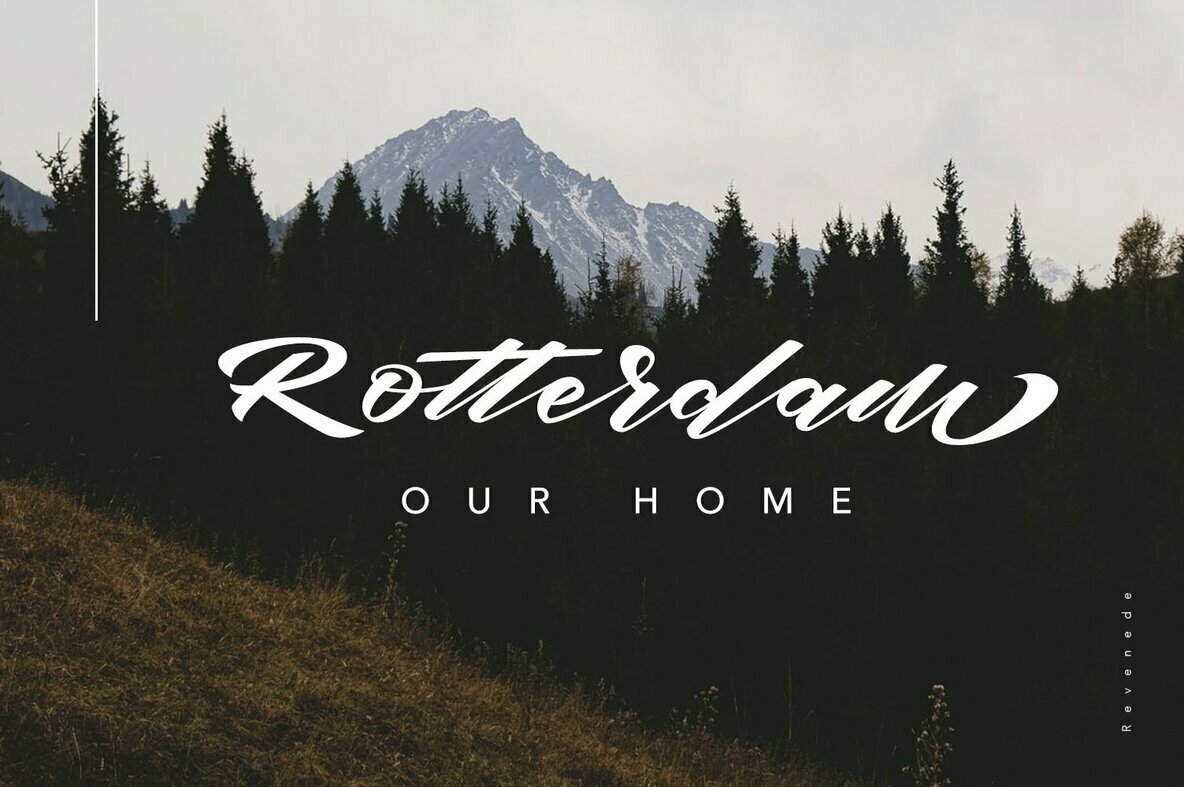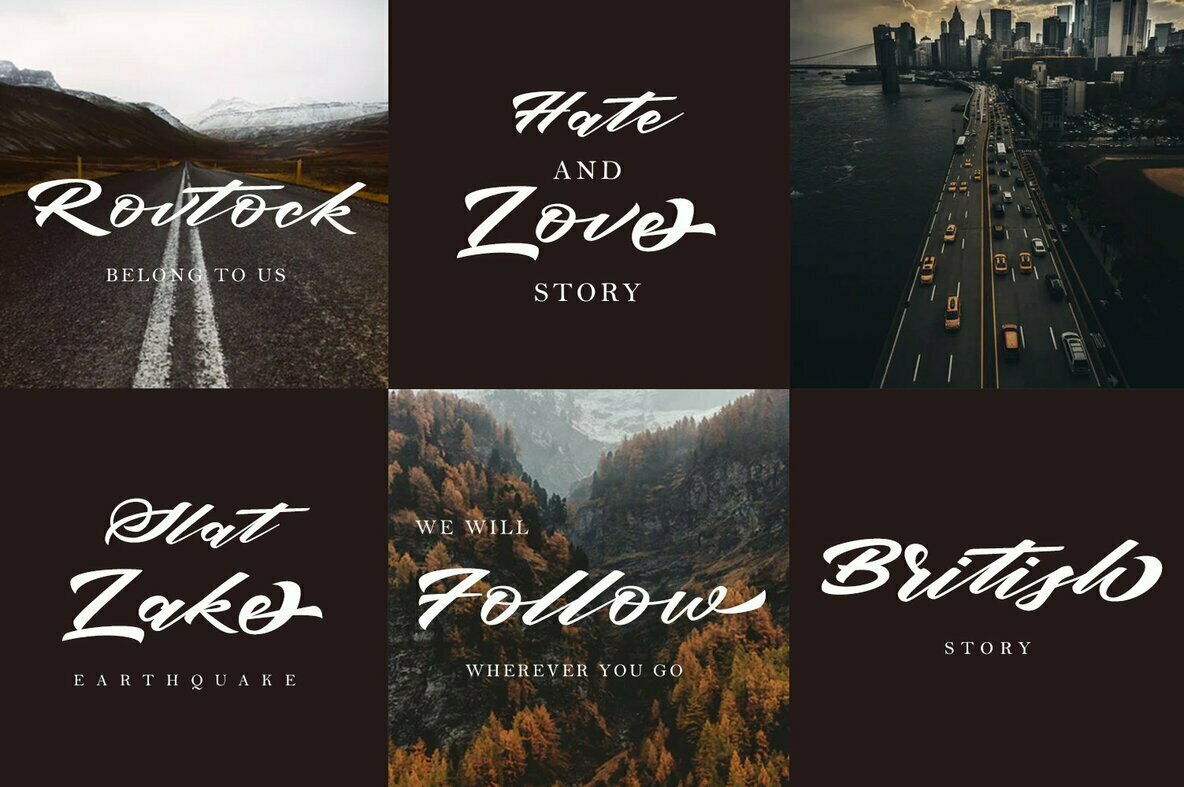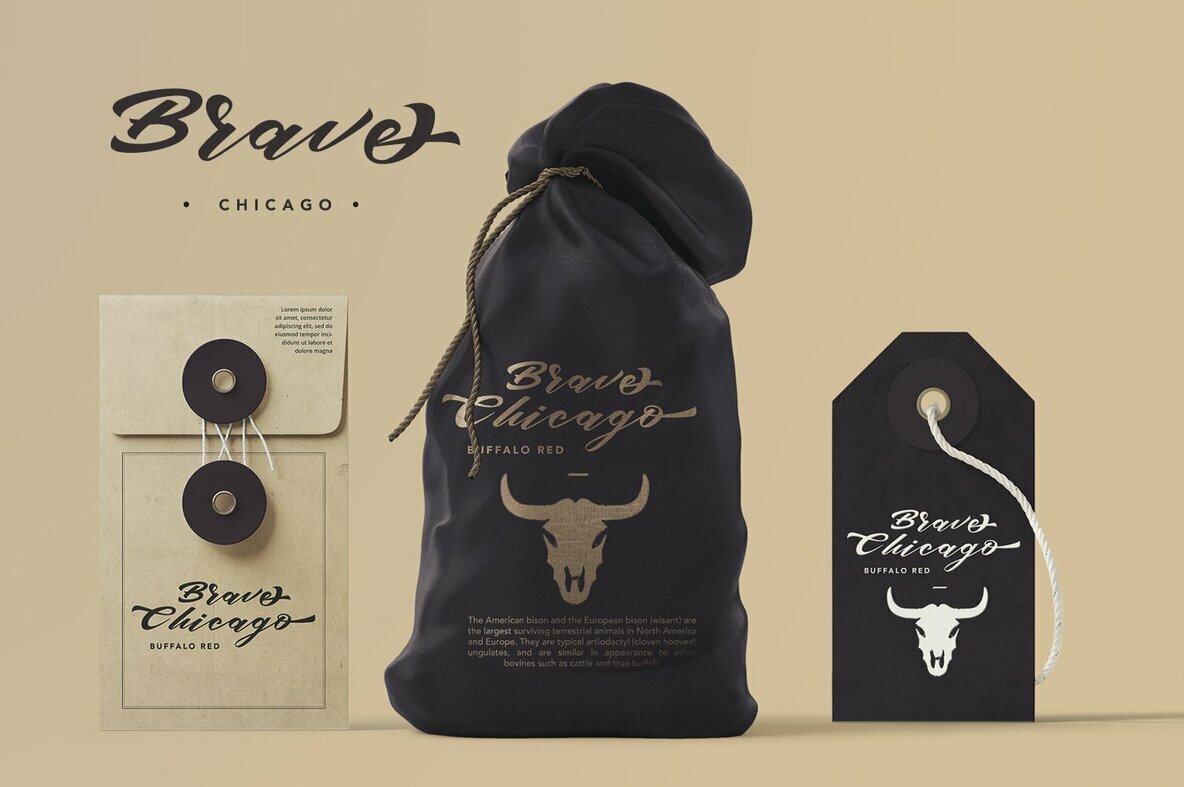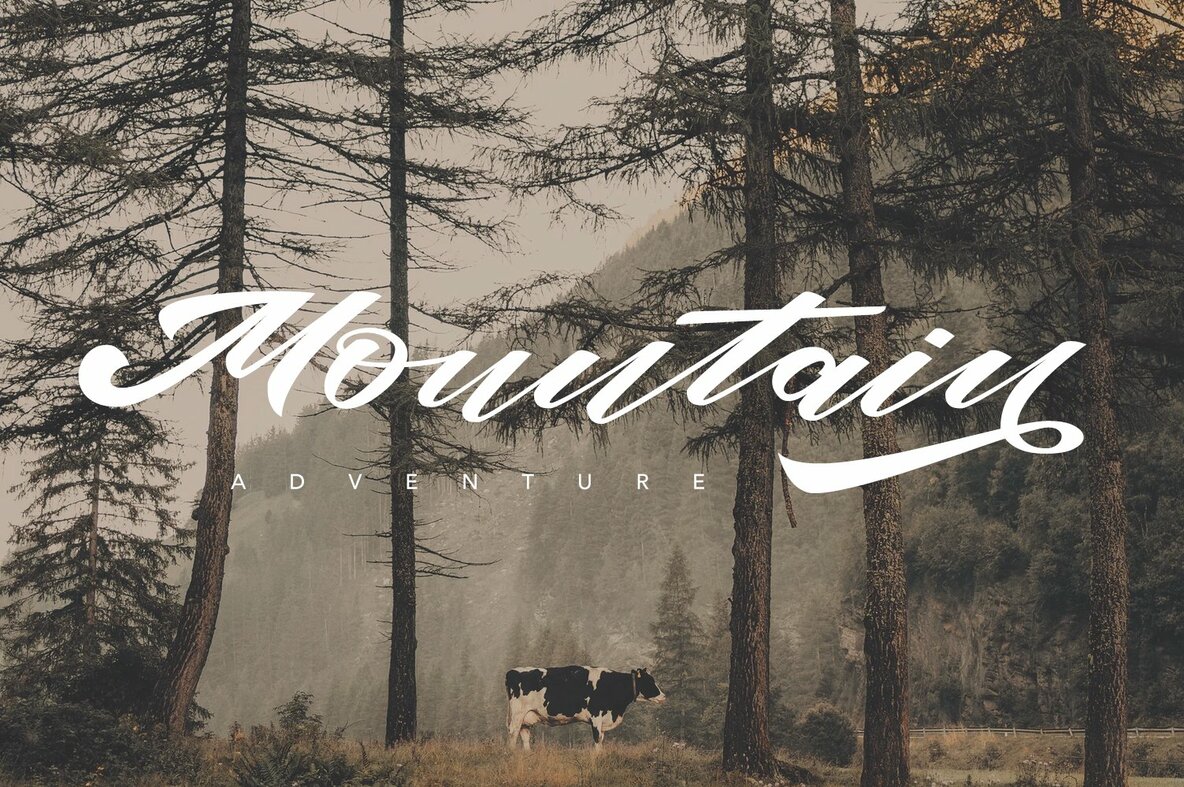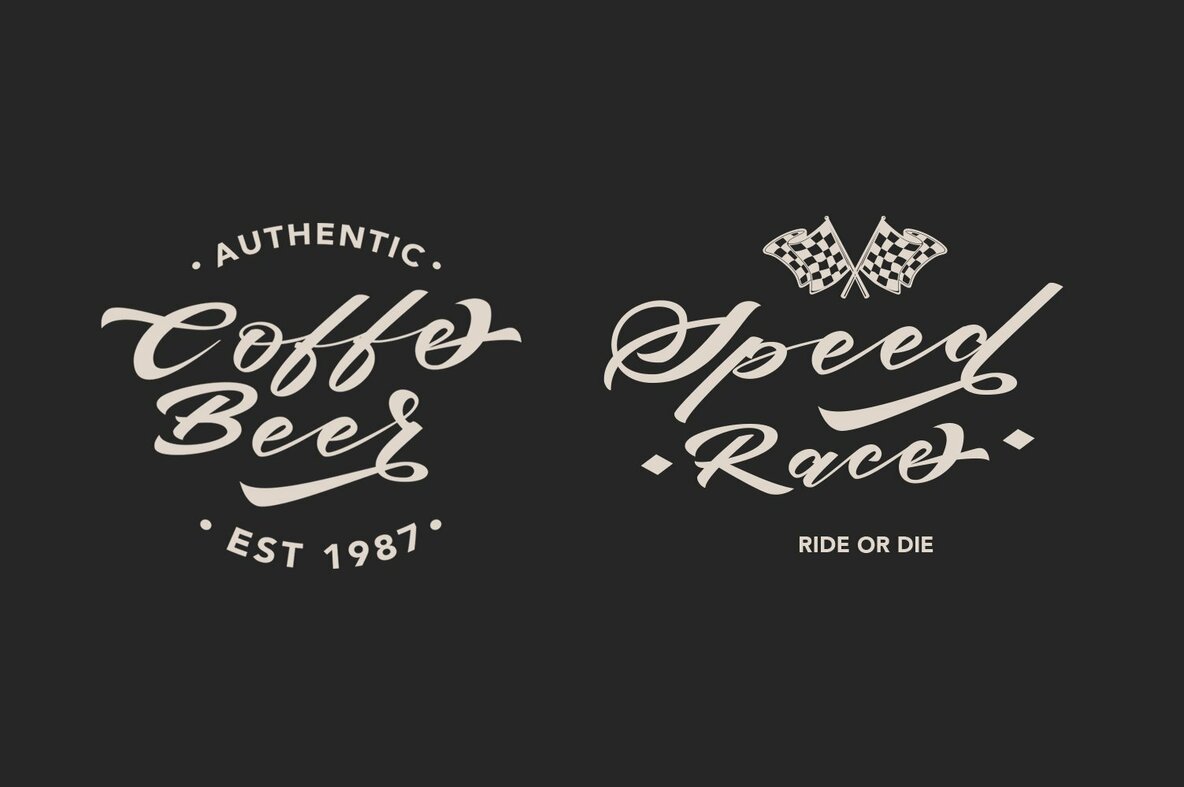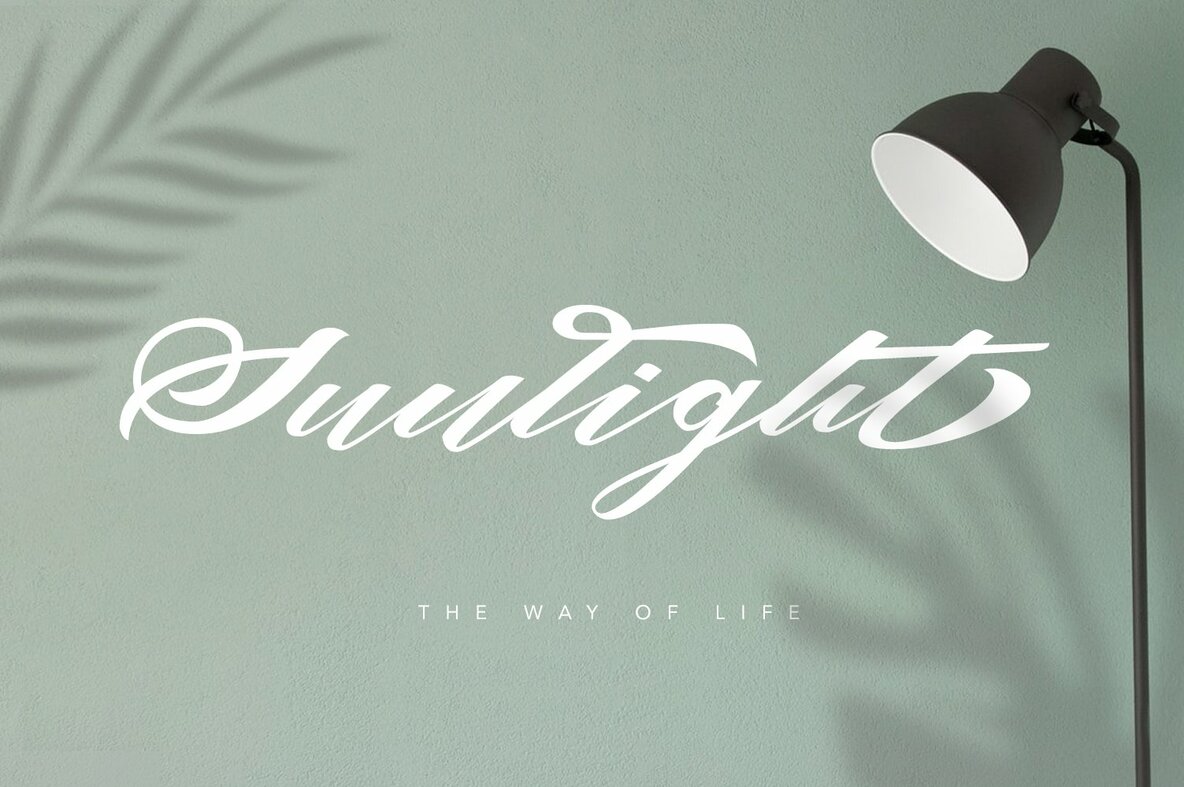
Brucke: A Stylish Typeface for Contemporary Designs
Brucke stands out as a sophisticated typeface, uniquely blending style and elegance. Its design adapts seamlessly to a range of typographic projects, providing a modern flair that enhances the visual appeal of various applications.
• Versatile Usage – Ideal for branding, invitations, logos, and advertisements.
• Elegant Typography – Perfect for social media posts and product designs.
• Modern Appeal – Offers a stylish touch to any design project.